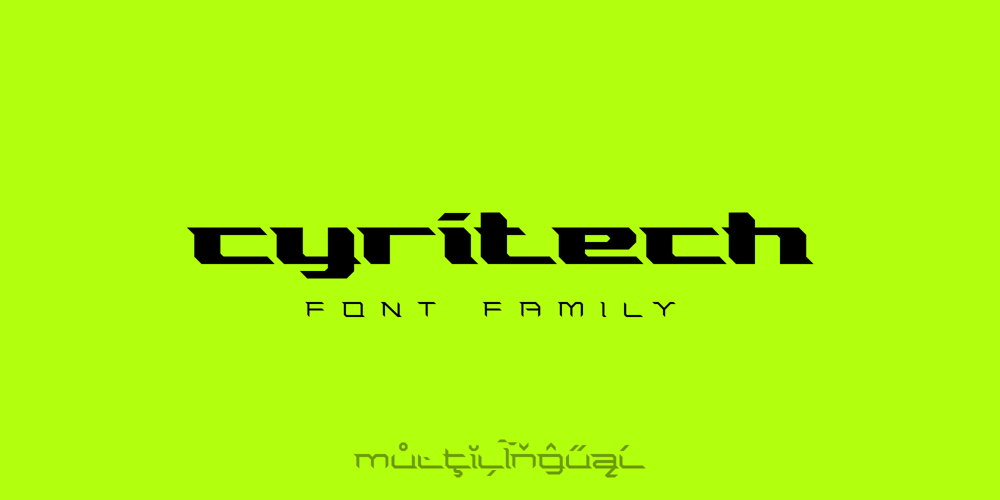
Cyritech Font Family was designed by Roland Hüse and published by Sentavio. Cyritech contains 3 styles and family package options. Cyritech is stylish futuristic geometric tech Three Fonts’ Family designed for such areas as hi-tech, future, sport, space, army, games and many others.The feature of this font that it has serifs of triangle shape, that allows organic letters’ connection, which makes it interesting and unique.Multilingual support (Latin extended).It is designed for header and text both.